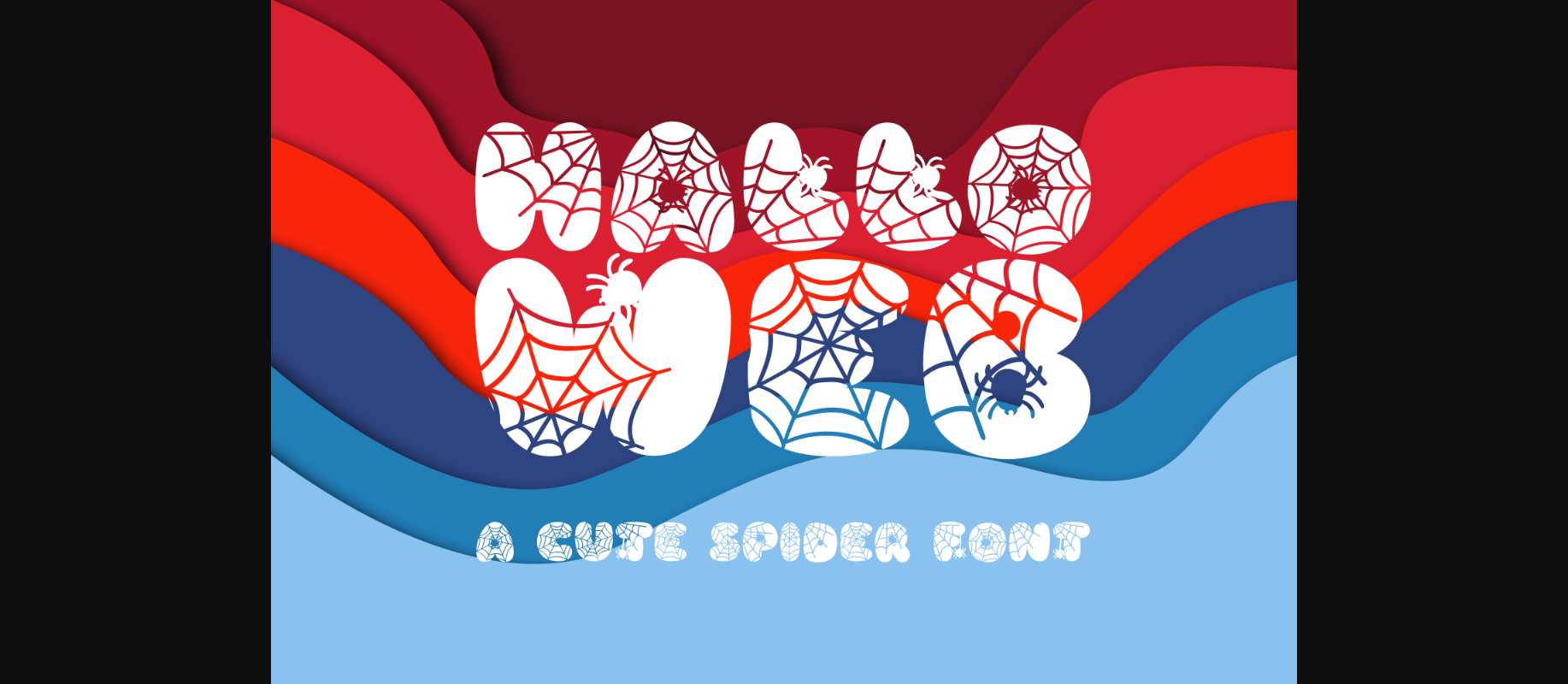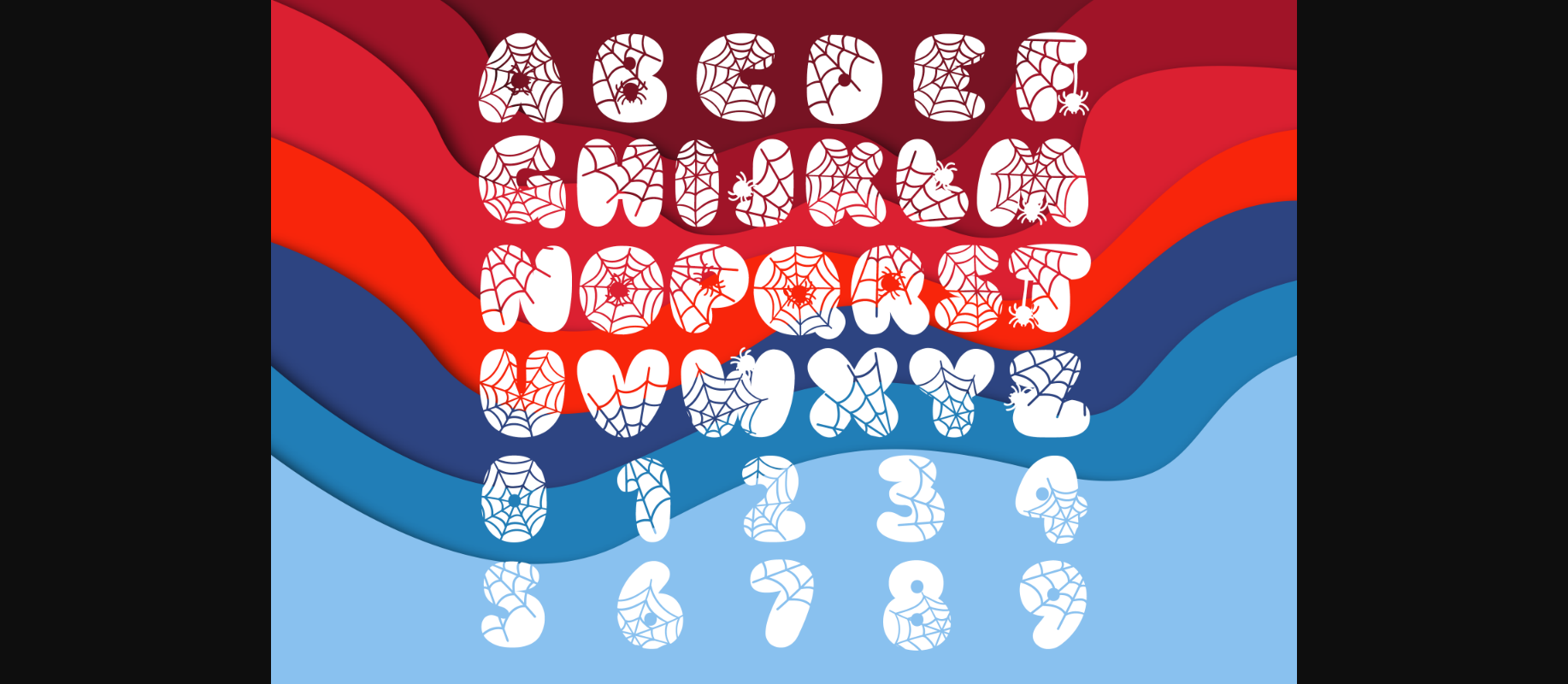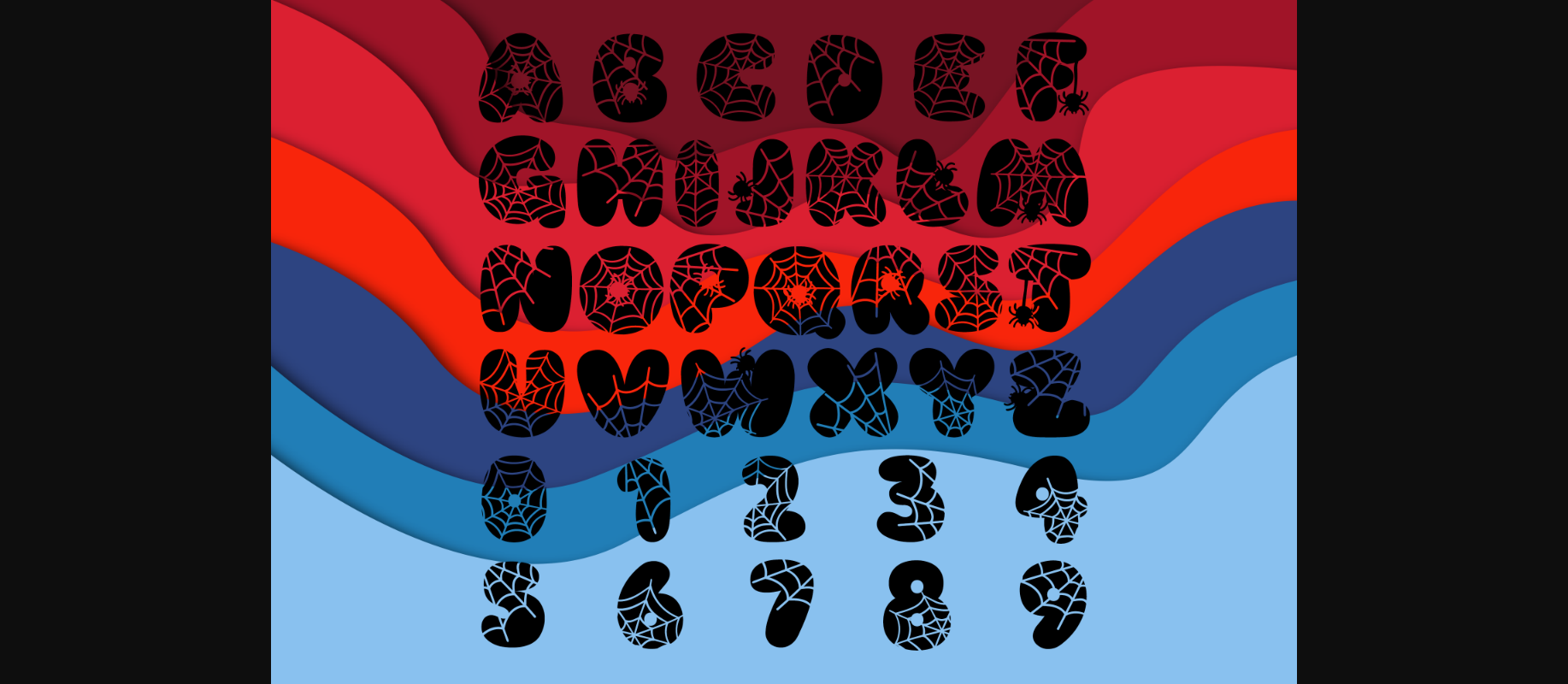
HomeDecorative FontsHallo Web Font Decorative Fonts Hallo Web Font FacebookXPinterestWhatsApp 1 of 5 ... Hallo Web Font Poster 2... Hallo Web Font Poster 3... Hallo Web Font Poster 4... Hallo Web Font Poster 5... About Hallo Web Font Hallo Web is an incredibly cool and spooky decorative font. Add it to each of your Halloween designs, and they will instantly stand out. DOWNLOAD NOW People also explored Blahfa Font PN Octothorp Font Kyooti-Bun Font Bagday Script Font Ravaris Font Silence Night Font Arch Font Asmara Font Berryspread Font 404 0 TagsHallo Web Font Previous articleFall FontNext articleEye Balls Duo Font LEAVE A REPLY Cancel reply Comment: Please enter your comment! Name:* Please enter your name here Email:* You have entered an incorrect email address! Please enter your email address here Website: Save my name, email, and website in this browser for the next time I comment. Personal Use Free Avagan Personal Use Free Read more about this font Strasua Personal Use Free Read more about this font Authurium Personal Use Free Read more about this font Metal Lord Personal Use Free Read more about this font BLOG Transform Your Website: Elevate Your Typography with 7 Best Web Font Generators Are you ready to transform your website's typography from ordinary to extraordinary? Great! Today, we're diving into the world of web font generators, which... Best Fonts for YouTube Videos: Make Your Thumbnails Stand Out Modern Sans-Serif Fonts That Brands Love in 2025 Using Fonts in Digital Marketing: Tips to Strengthen Your Brand Identity